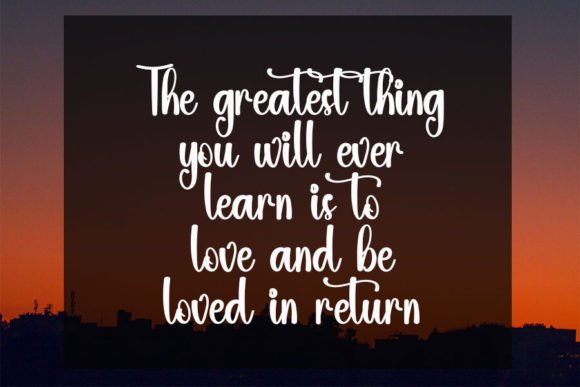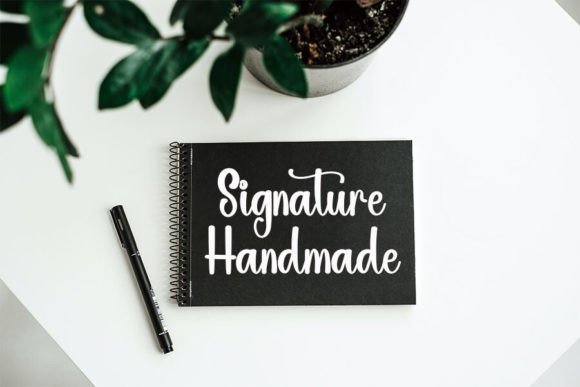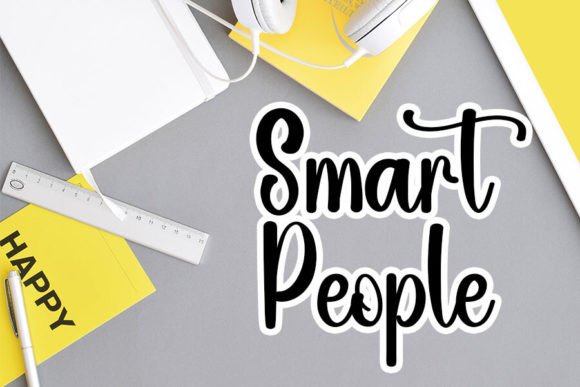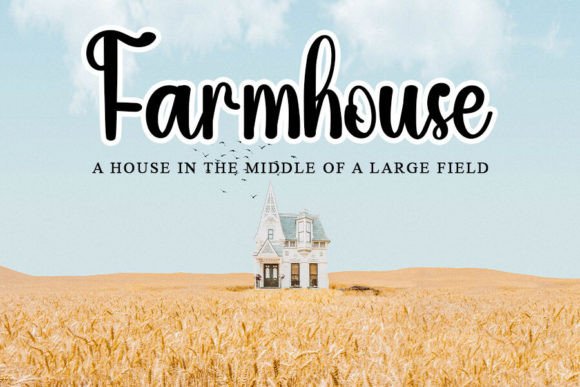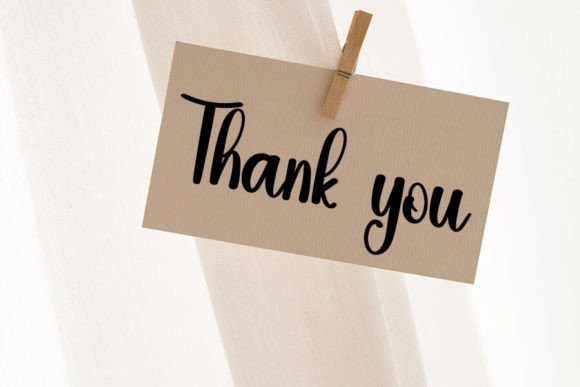
Introduction to Beauties Christmas Font
Have you ever been stuck on a creative project, desperately searching for the perfect font to bring your design to life? I know I have! There’s nothing quite like the thrill of finding that one special font that elevates your entire project and makes it truly shine. For designers, the right font can be the difference between a good design and a great one.
That’s why I’m excited to introduce you to the Beauties Christmas Font – a beautiful, elegant font that’s perfect for any project that needs a touch of holiday magic. With its distinct and timeless style, this font is sure to be a favorite among designers looking for a high-quality design resource.
Key Features of Beauties Christmas Font
- High-quality design for creative projects, perfect for the holiday season.
- Includes a range of festive characters and symbols, ideal for adding a touch of holiday cheer to designs.
- Unique characteristics include elegant, cursive script and decorative elements, perfect for creating visually appealing holiday designs.
Honest Review: Beauties Christmas Font
I recently stumbled upon the Beauties Christmas Font, a free download that I was excited to add to my design resource collection. As a designer, I appreciate high-quality fonts that can elevate a creative project.
One of the things that works well with this font is its festive and playful vibe. The design is perfect for Christmas-themed projects, and the transparent background makes it easy to customize and layer with other design elements. ✨ The font’s style is elegant yet fun, making it a great choice for a variety of designs, from social media graphics to print materials.
Another advantage of the Beauties Christmas Font is its wide range of characters, including uppercase and lowercase letters, numbers, and punctuation marks. This makes it easy to use for a variety of text-based projects.
- Festive and playful vibe
- Wide range of characters
However, I do have a few limitations to note. ⚠️ The font may not be suitable for professional or corporate projects, as it has a more casual and playful tone. Additionally, some users may find the font’s design to be a bit too ornate or over-the-top.
Overall, I’m impressed with the Beauties Christmas Font and would recommend it to designers looking for a fun and festive font for their creative projects.
Some tips for getting the most out of Beauties Christmas Font include experimenting with different font sizes and styles to create a unique look. This font is commonly used in holiday-themed designs, such as Christmas cards, gift tags, and party invitations. It’s also a great resource for bloggers and social media creators looking to add a touch of festive flair to their content.